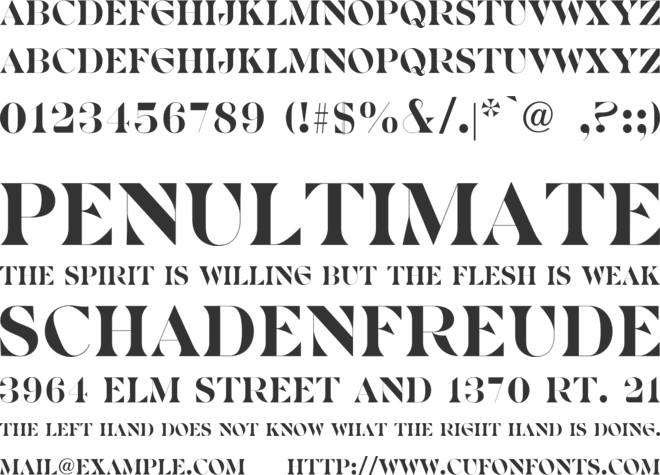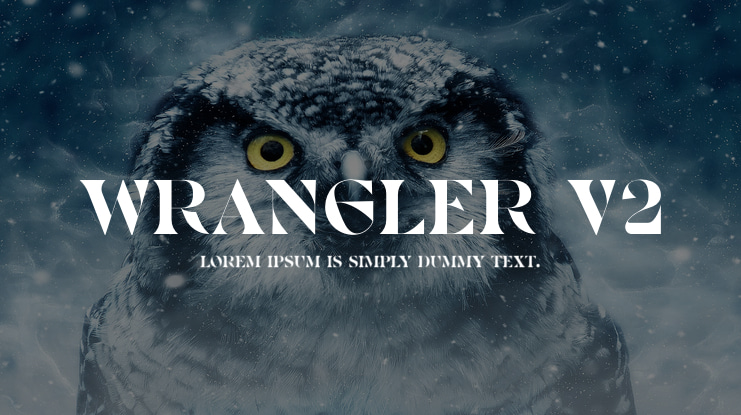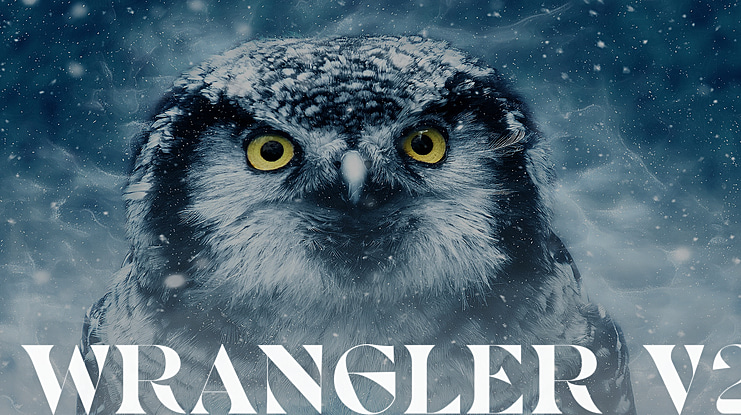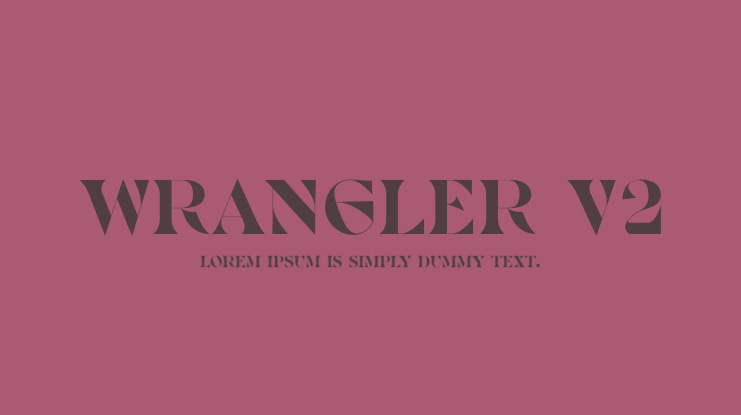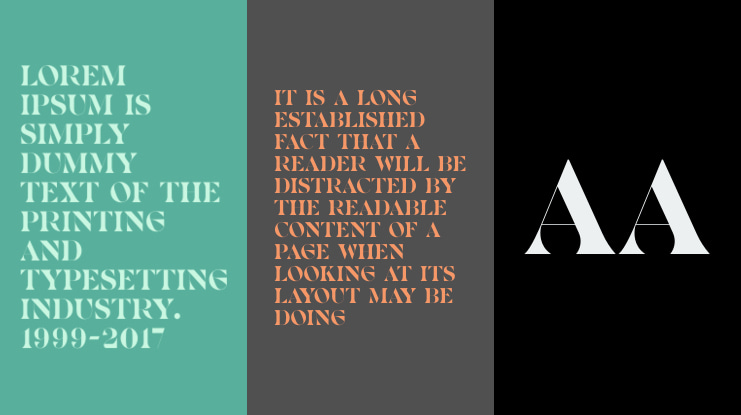
Wrangler V2 Font
Tropicaltype
It’s an elegant and distinct serif typeface with fancy curves. This style works well for branding projects, logos, wedding designs, social media posts, advertisements, product packaging, product designs, label, photography, watermark, invitation, or whatever project you’re working on.